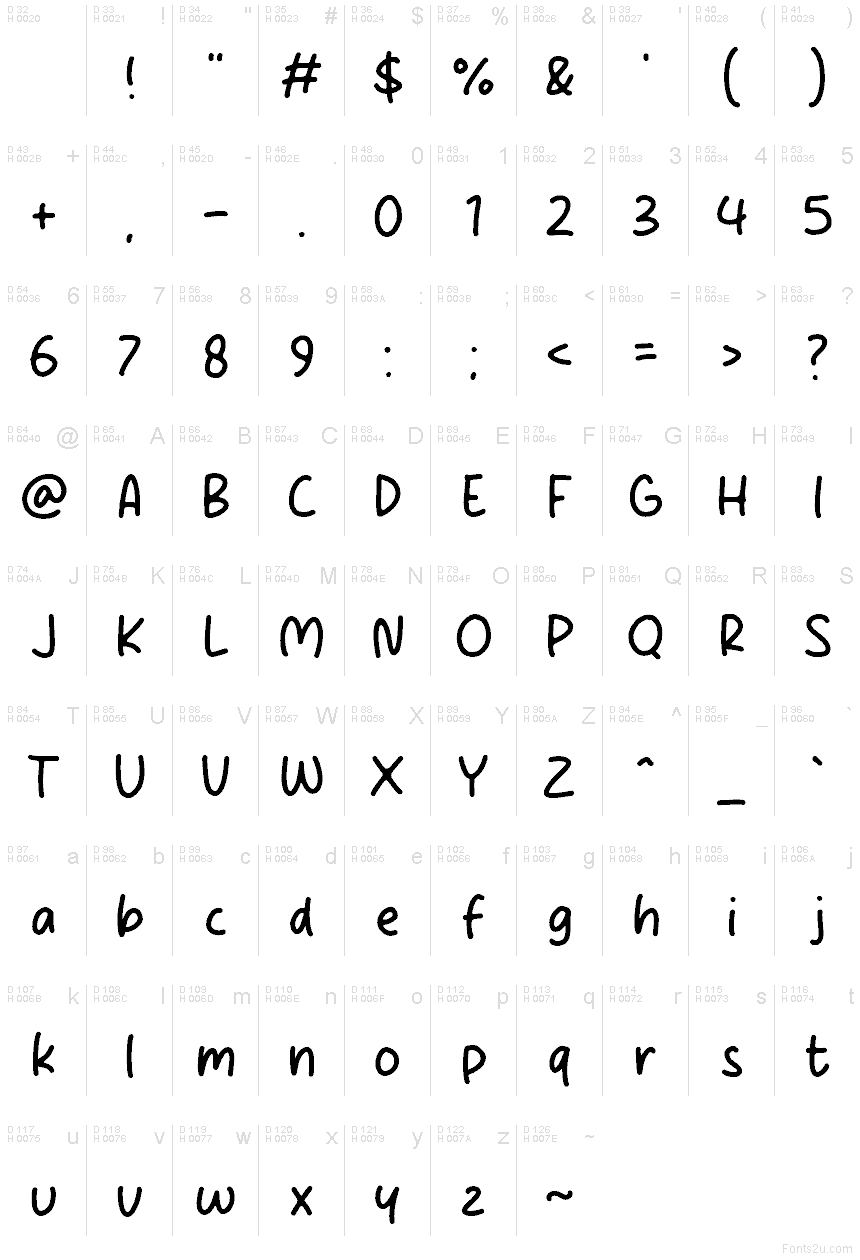
Looply Marker
Looply Marker font by MJType combines a casual, lively handwritten appearance with a modern marker style. With its informal aesthetic, the font has an elevated charm that both personal and institutional designs can benefit from.
Free handwritten font for digital or printed posters, ads, invitations, greeting cards, business cards, etc. Its fine selection of both characters and symbols allows the seamless creation of branding designs and lovely yet outstanding logos.